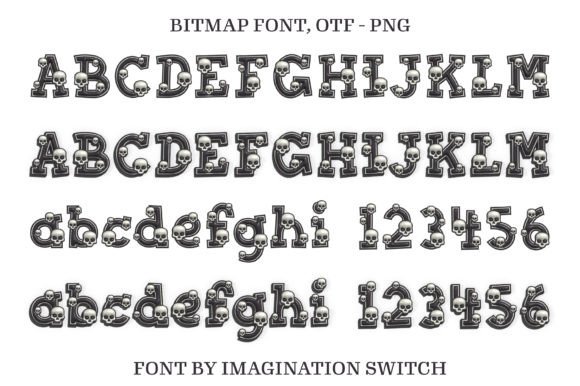
Unleash the Power of Depth with Dead Skull 3D Font
Are you tired of using the same old fonts that lack dimension and personality? Look no further than the Dead Skull 3D Font, a typographic creation that brings a unique visual sensation to your designs. With its clever use of color and 3D style, this font is sure to add a dynamic touch to any project.
A Font that Pops
The Dead Skull 3D Font is a game-changer for designers and crafters looking to add some excitement to their work. Its 3D style creates an illusion of depth, making it perfect for projects that require a modern and dynamic look. Whether you’re working on print designs, such as posters, brochures, and business cards, or digital projects, like social media graphics and website headers, this font is sure to make your work stand out.
Full Set of Characters
This font comes complete with a full set of characters, including uppercase, lowercase, and numbers. This diversity of characters allows you to be creative with various design styles and applications. You can use it to create eye-catching headlines, craft engaging taglines, or simply add a touch of personality to your text.
With the Dead Skull 3D Font, the design possibilities are endless. Here are a few ideas to get you started:
- Print designs: posters, brochures, business cards, flyers, and more
- Digital projects: social media graphics, website headers, email newsletters, and more
- Crafting: papercraft, card making, scrapbooking, and more
- Branding: logos, packaging, and more
To get the most out of the Dead Skull 3D Font, here are a few tips and tricks:
- Use the font in combination with other design elements, like images and graphics, to create a unique look
- Don’t be afraid to get creative and try out new and unusual design ideas
The Dead Skull 3D Font is a powerful tool for designers and crafters looking to add some excitement to their work. With its 3D style, full set of characters, and compatibility with popular design software, this font is sure to become a go-to in your design arsenal. So why wait? Download the Dead Skull 3D Font today and start creating stunning designs that pop!
- 3D style font with clever use of color
- Full set of characters, including uppercase, lowercase, and numbers
- Opentype-SVG color font
- Endless design possibilities for print and digital projects